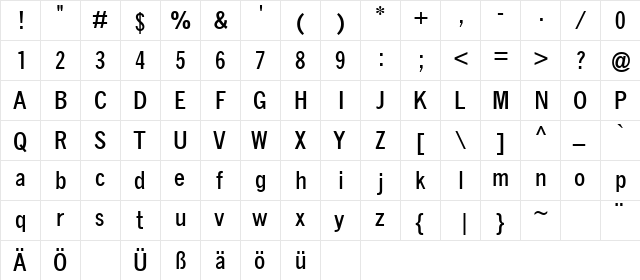
TaxTypeCondensed Bold Font Preview
TaxTypeCondensed Bold
TaxTypeCondensed Bold Font Details
Design Context for TaxTypeCondensed Typeface
TaxTypeCondensed is a composed and adaptable typeface that performs quietly and consistently across a wide range of design contexts. The heavy weight commands attention and anchors typographic hierarchies. The condensed width makes it efficient for tight spaces without sacrificing legibility.